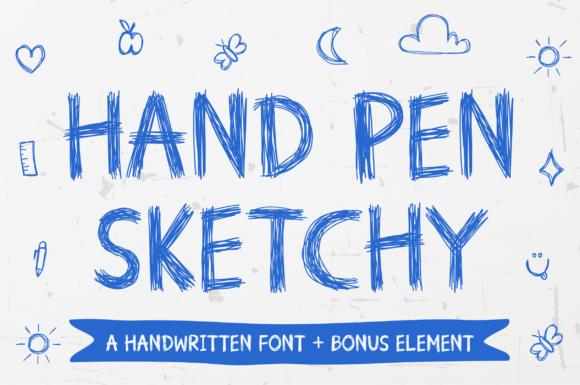
Unleash Your Creativity with Hand Pen Sketchy Font: A Playful Kids’ Doodle Font
Are you looking for a font that can add a touch of playfulness and creativity to your designs? Look no further than the Hand Pen Sketchy Font. This delightful font is perfect for bringing out your inner child and adding a fun twist to your projects. In this article, we’ll explore the features of the Hand Pen Sketchy Font and how you can use it to take your designs to the next level.
What is Hand Pen Sketchy Font?
Hand Pen Sketchy is a playful kids’ doodle font that features a sketchy style, reminiscent of hand-drawn doodles. The font is designed to be fun and playful, making it perfect for use in children’s books, educational materials, and other projects where a lighthearted touch is desired.
The font is also versatile, making it suitable for use in a wide range of projects, from digital designs to print materials. Whether you’re creating a flyer, poster, or social media graphic, the Hand Pen Sketchy Font is sure to add a touch of whimsy and personality to your design.
Key Features of Hand Pen Sketchy Font
The Hand Pen Sketchy Font comes with a range of features that make it easy to use and customize. Some of the key features include:
- Easy color changes: With the Hand Pen Sketchy Font, you can easily change the colors as you type, adding a fun touch to your projects.
- Cute symbols: The font includes a range of cute symbols to enhance your designs and add an extra touch of personality.
- Bonus PNG and SVG elements: The font also comes with bonus PNG and SVG elements, which can be used to add extra visual interest to your designs.
Using Hand Pen Sketchy Font in Your Designs
Using the Hand Pen Sketchy Font in your designs is easy. Here are a few tips to get you started:
- Experiment with color: One of the best things about the Hand Pen Sketchy Font is the ability to easily change colors as you type. Experiment with different color combinations to find the perfect look for your design.
- Add symbols and graphics: The font includes a range of cute symbols and graphics that can be used to enhance your designs. Experiment with different symbols to find the ones that work best for your project.
- Mix and match with other fonts: The Hand Pen Sketchy Font can be paired with other fonts to create a unique and interesting look. Experiment with different font combinations to find the perfect mix.
Perfect for Kids’ Projects
The Hand Pen Sketchy Font is perfect for use in kids’ projects, such as:
- Children’s books: The font’s playful and whimsical style makes it perfect for use in children’s books.
- Educational materials: The font can be used to create engaging and interactive educational materials, such as worksheets and activity sheets.
- Kids’ party invitations: The font can be used to create fun and playful party invitations that kids will love.
Tips for Getting the Most Out of Hand Pen Sketchy Font
Here are a few tips for getting the most out of the Hand Pen Sketchy Font:
- Be creative: The Hand Pen Sketchy Font is all about creativity and self-expression. Don’t be afraid to experiment and try new things.
- Use it in combination with other design elements: The font can be used in combination with other design elements, such as graphics and images, to create a unique and interesting look.
- Experiment with different sizes and styles: The font can be used in a range of sizes and styles, from small and delicate to large and bold.
The Hand Pen Sketchy Font is a playful and versatile font that is perfect for bringing out your inner child and adding a fun touch to your designs. With its easy color changes, cute symbols, and bonus PNG and SVG elements, this font is sure to be a hit with designers and creatives. So why not give it a try and let your creativity shine?